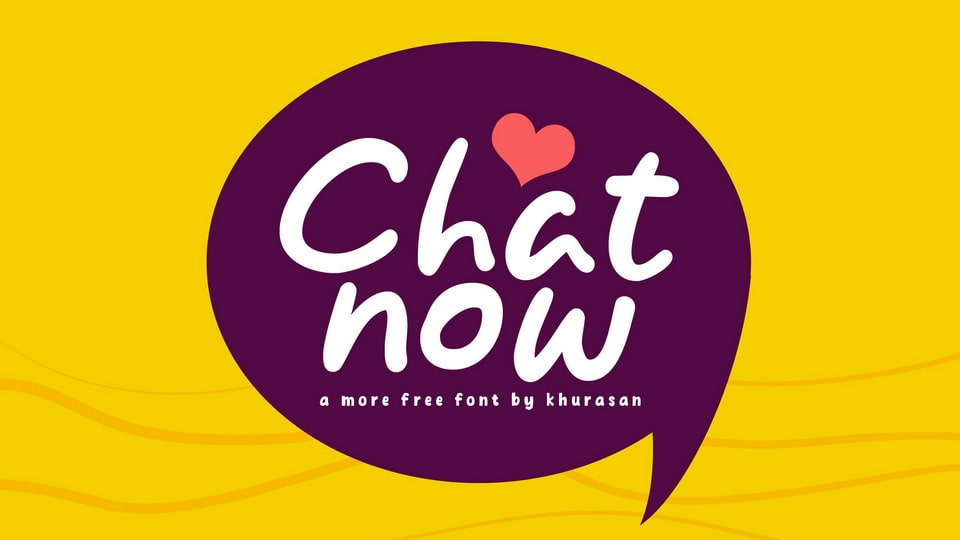
Download Chatnow font, a handwritten typeface that brings chat bubbles to life. Chatnow font is the ideal choice for designs that want to convey the informality and humor of online conversations.